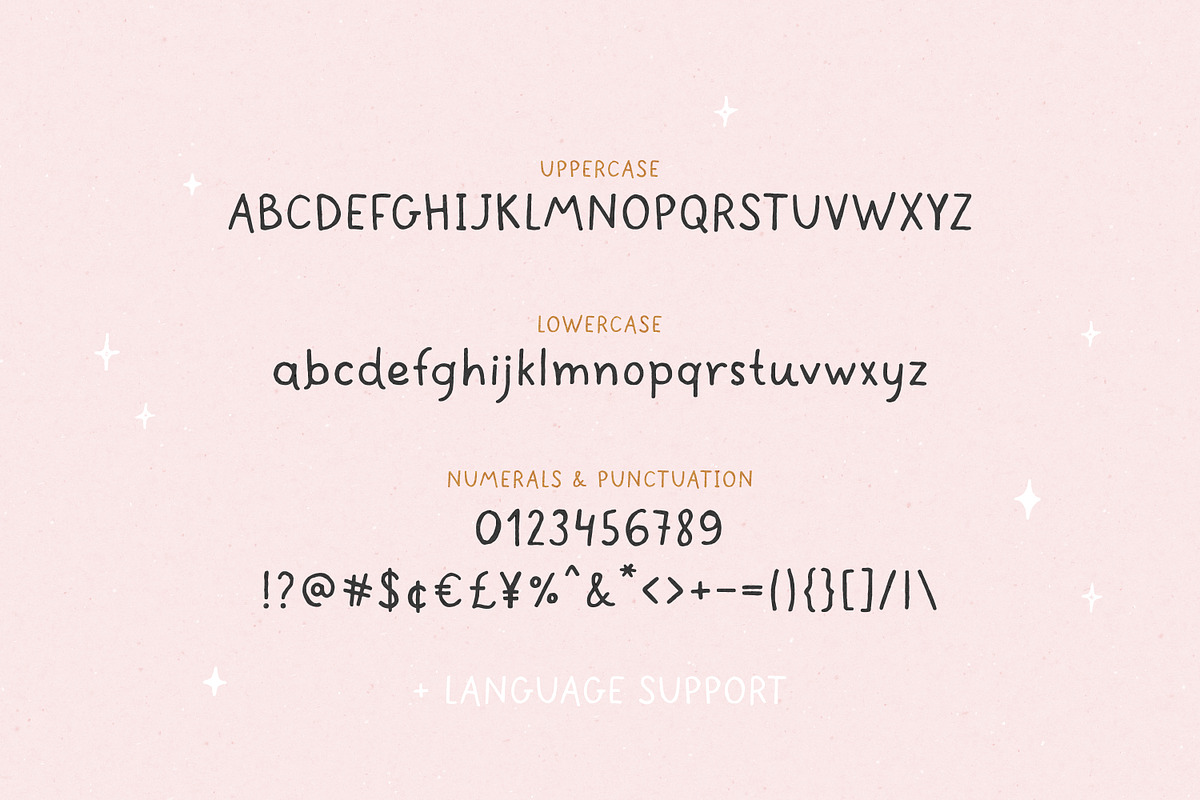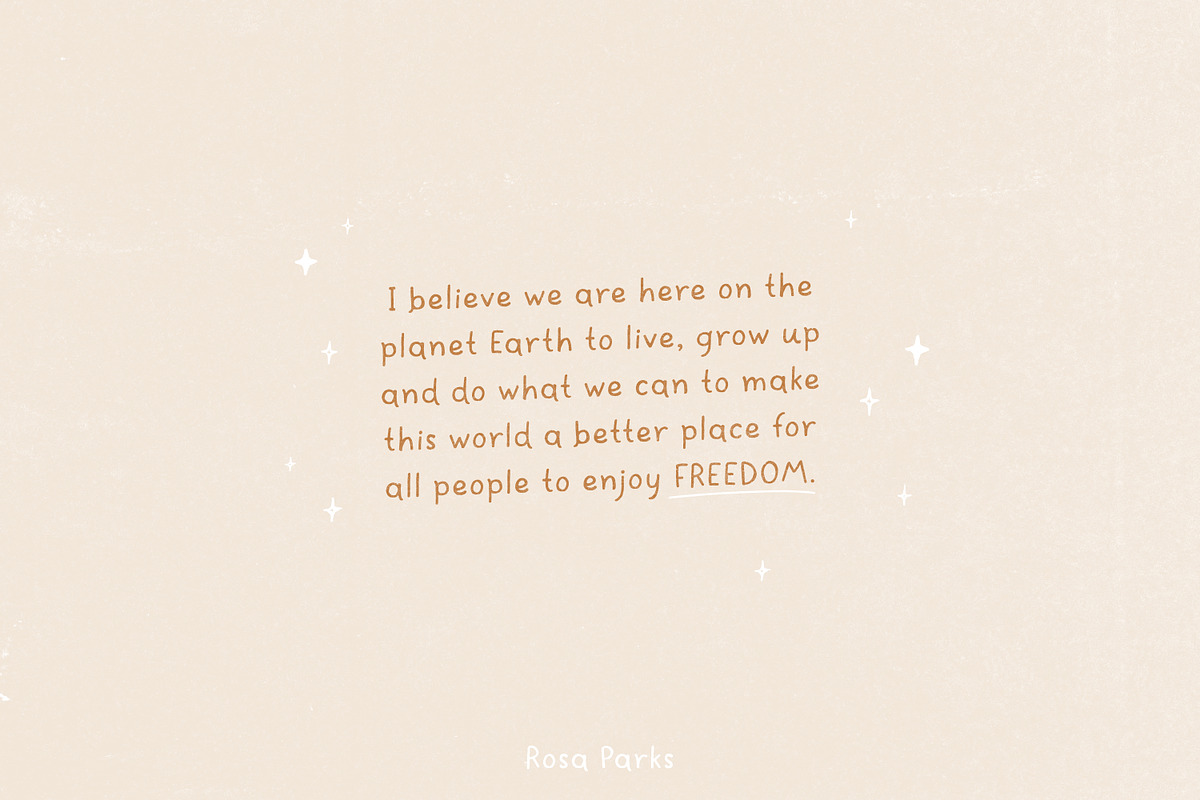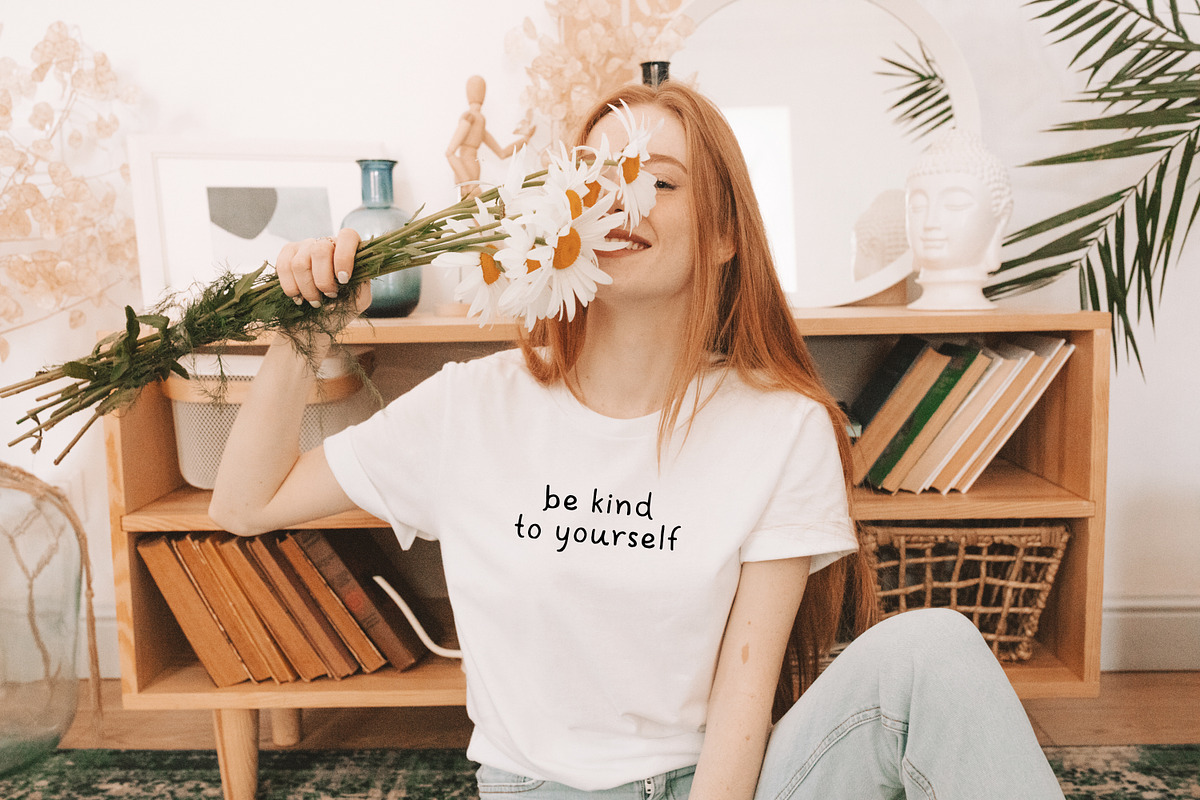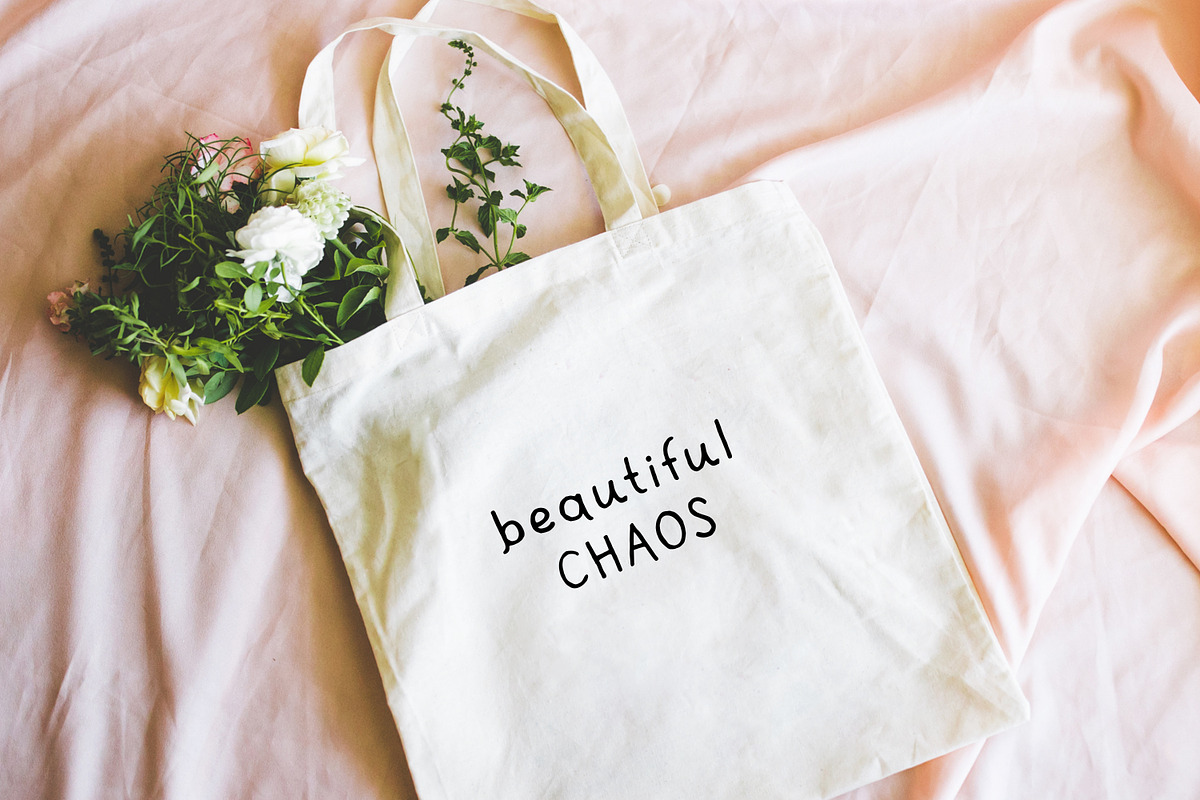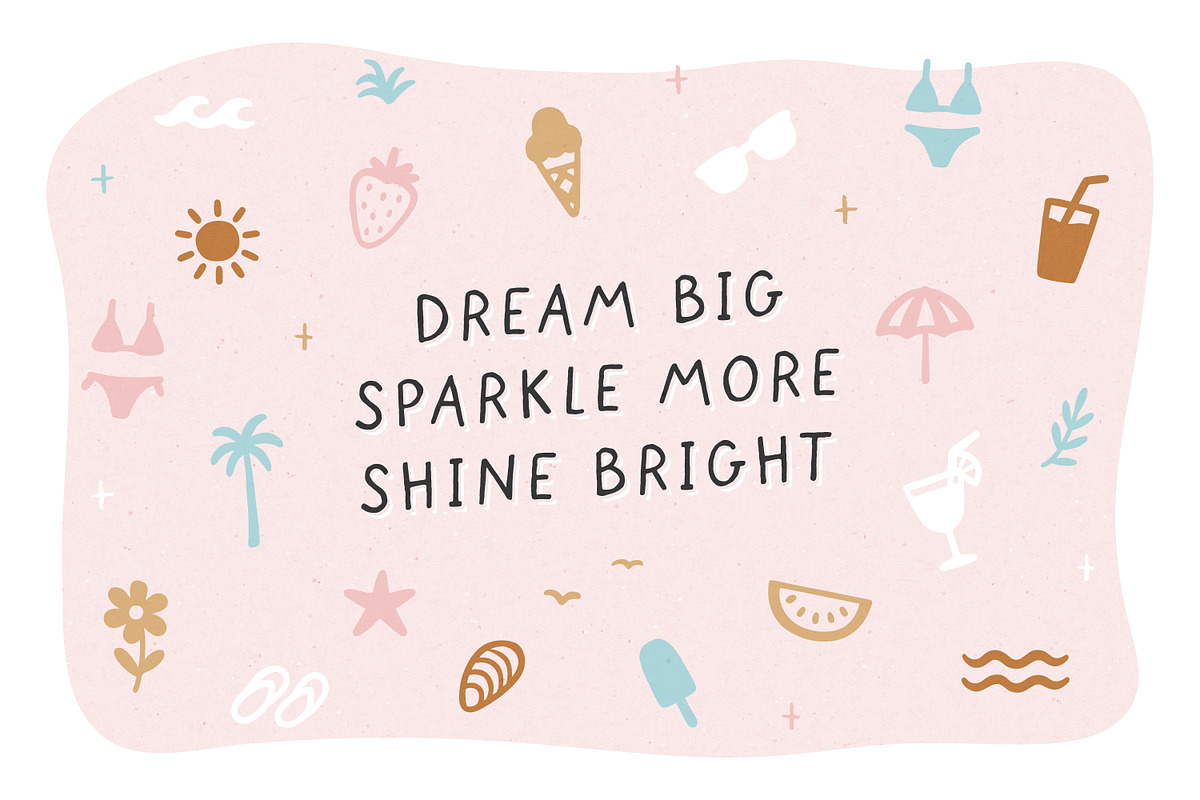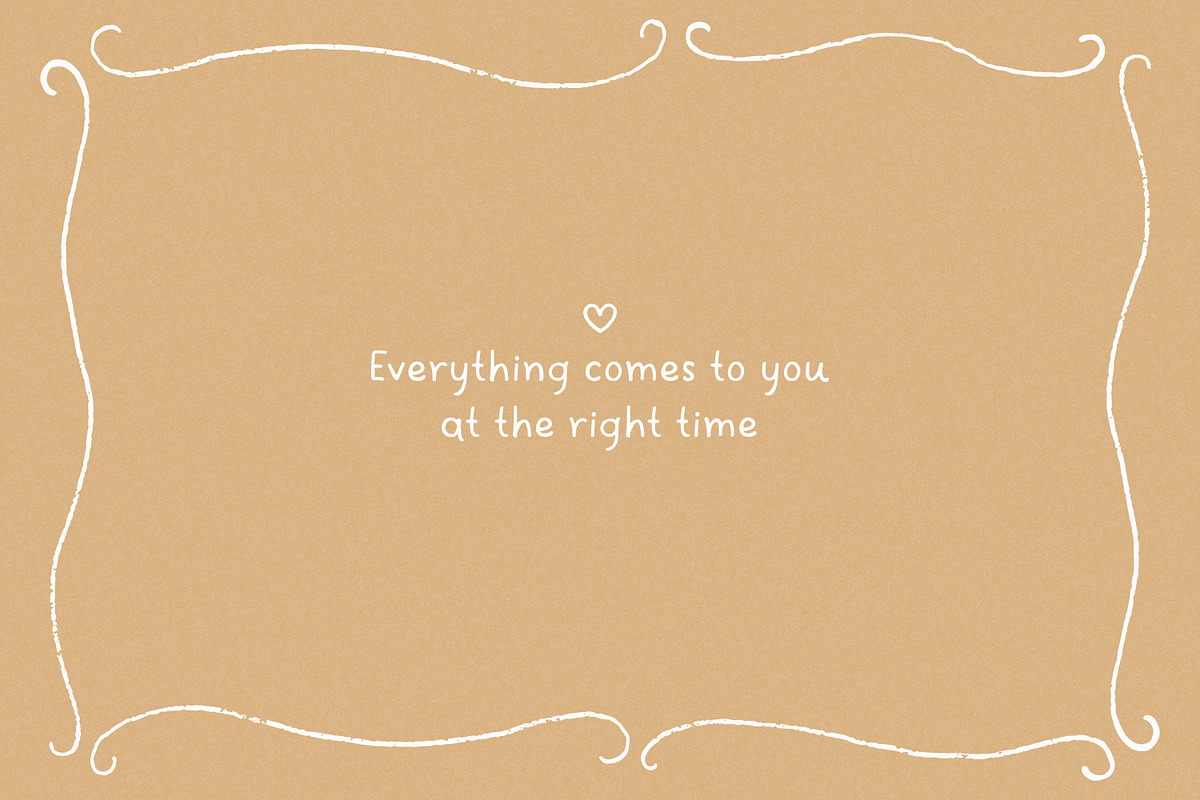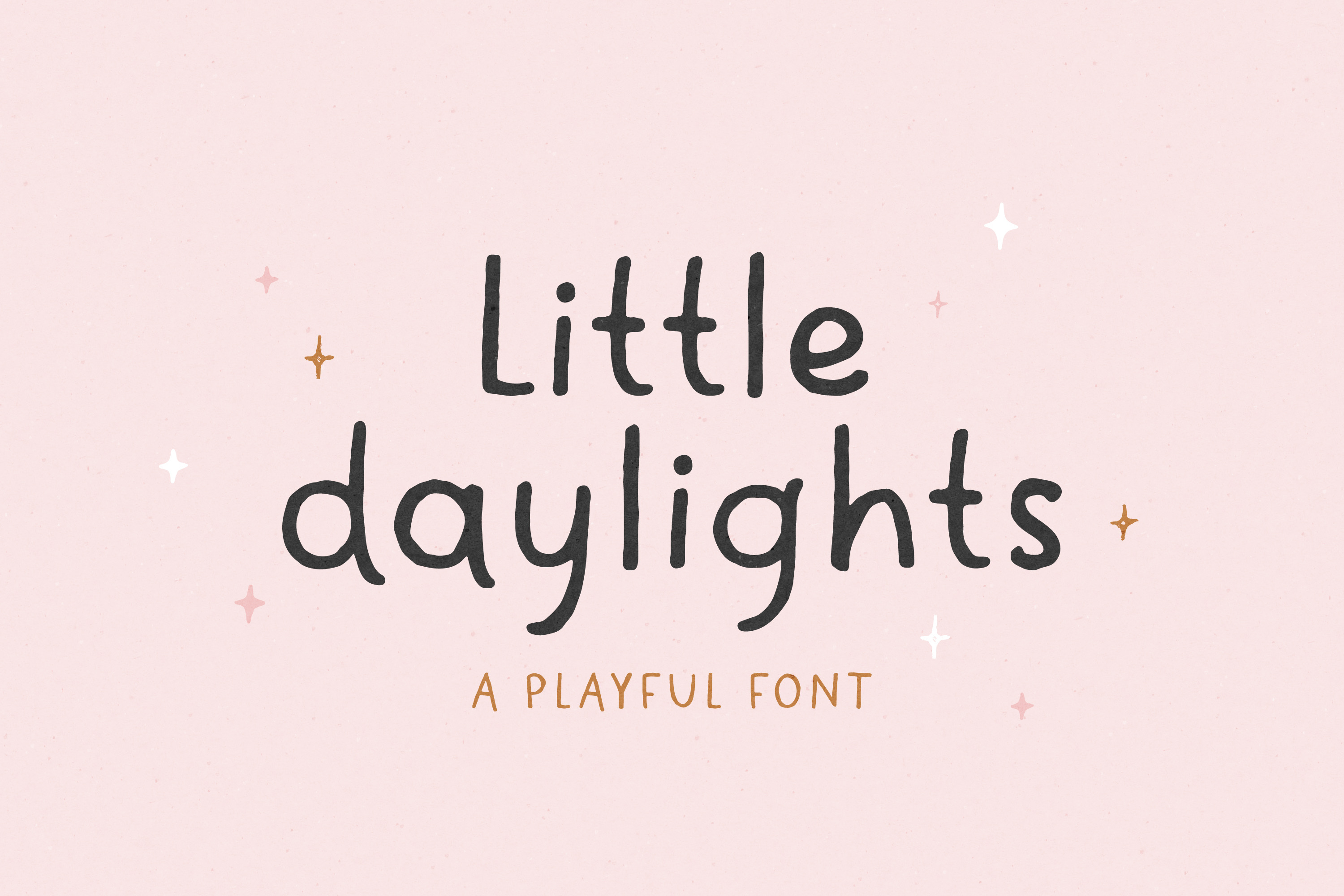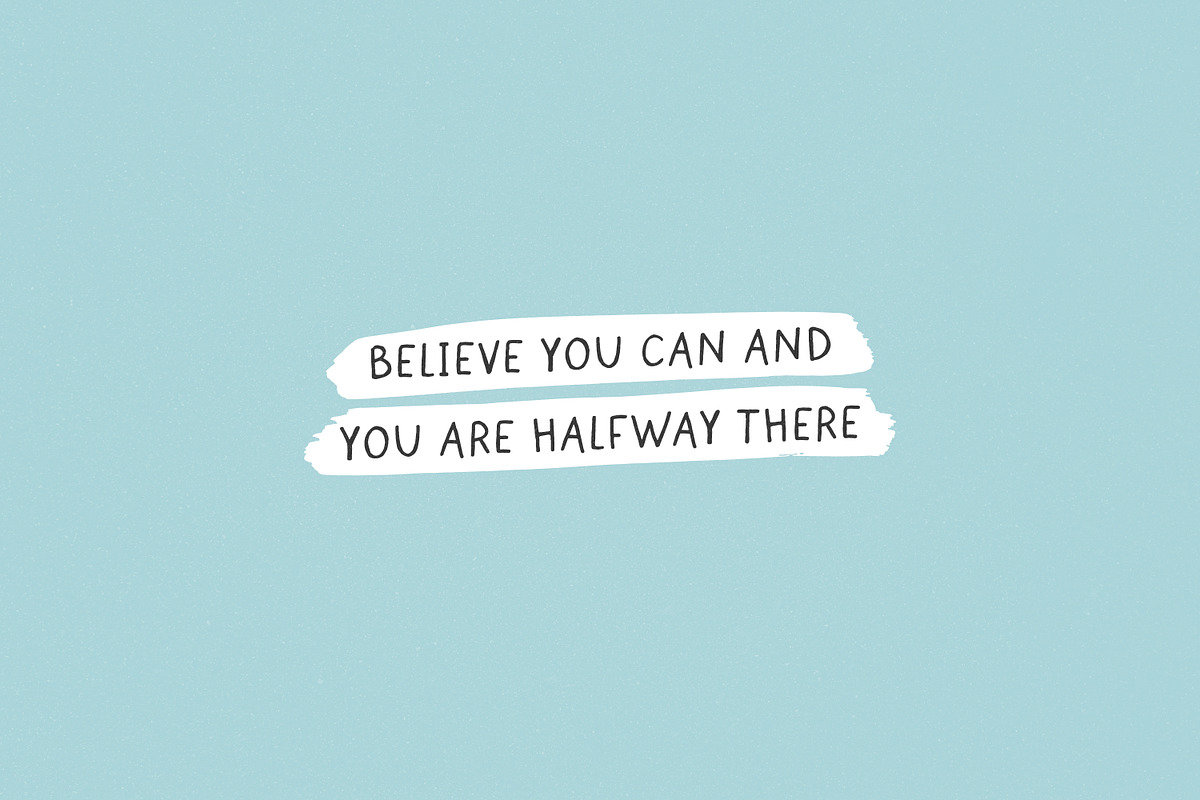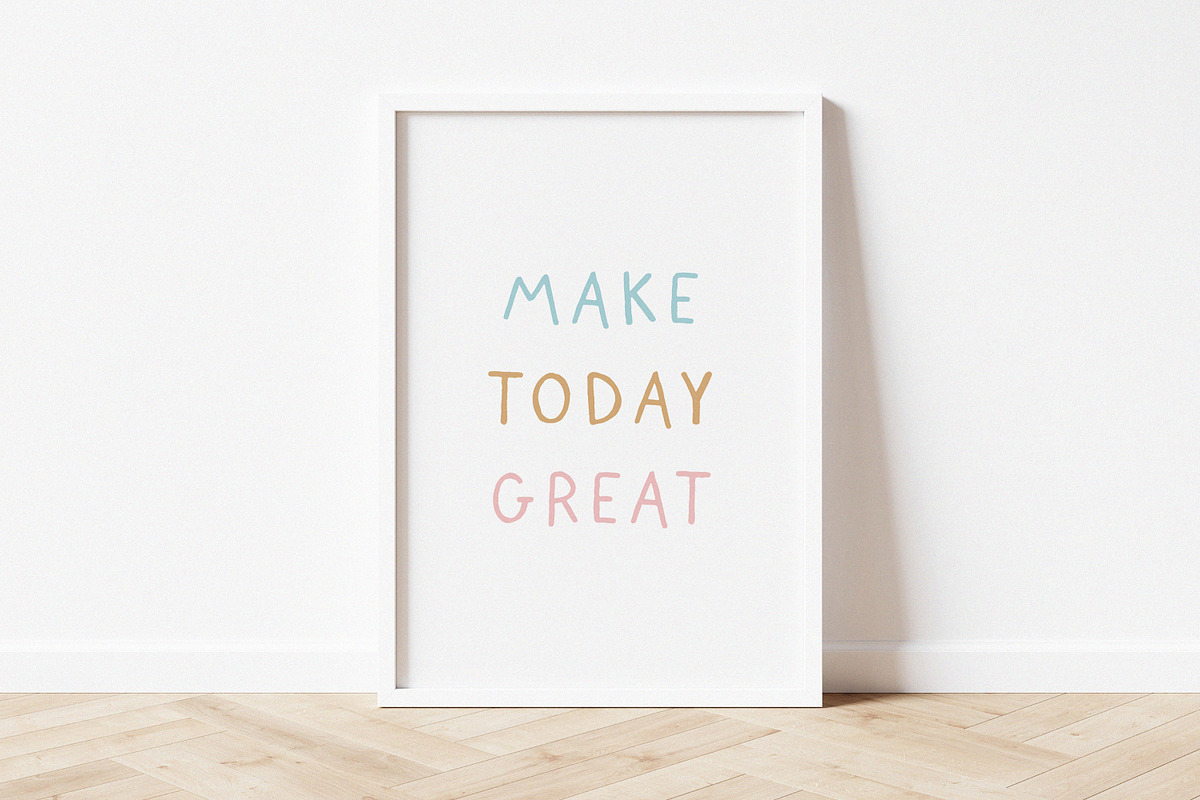
Little Daylights - Playful Font
Little Daylights is a playful handwritten font.
Perfect for logos, branding, packaging, apparel, cards, posters, stickers, quotes, social media posts, and more.